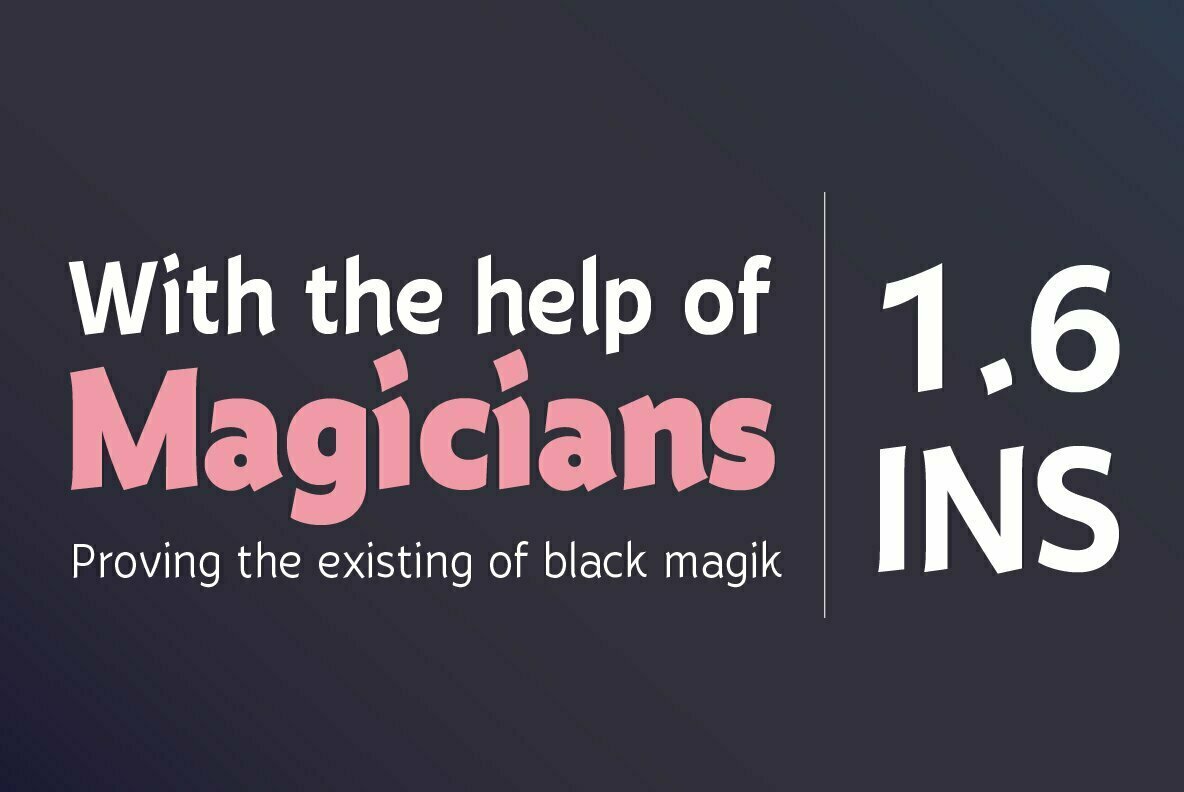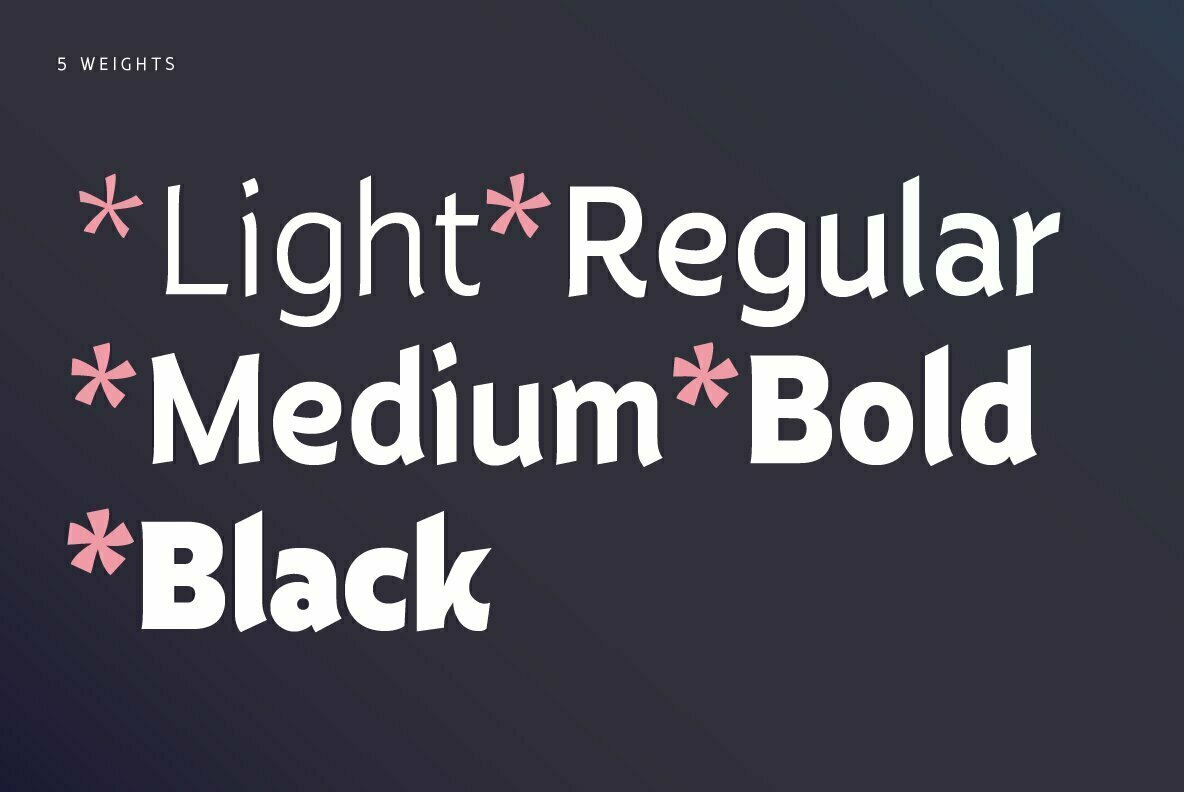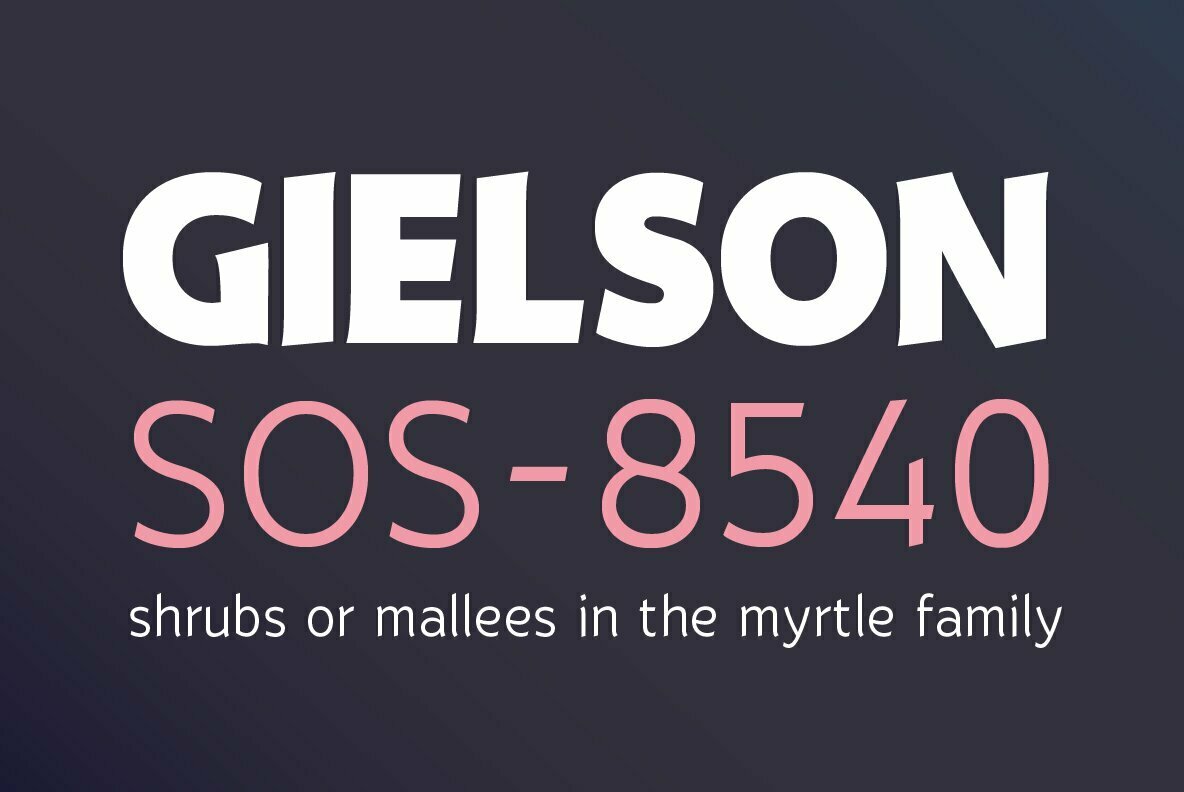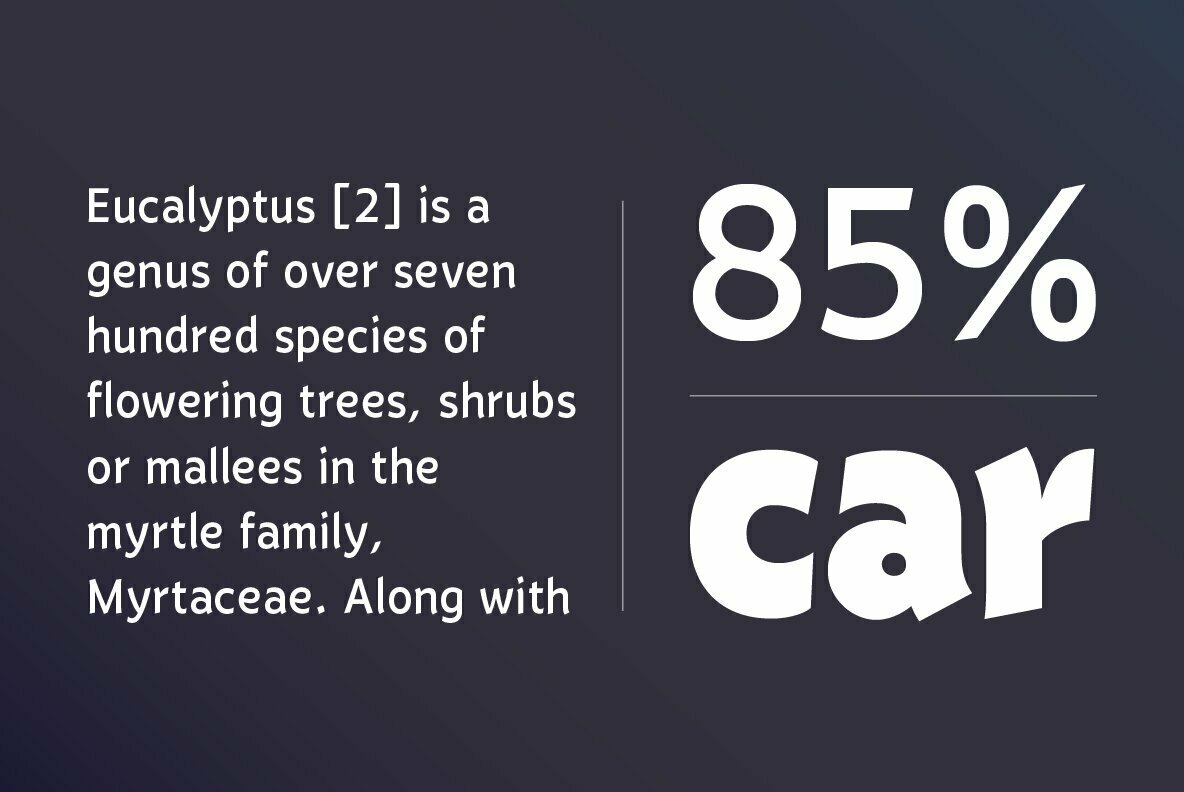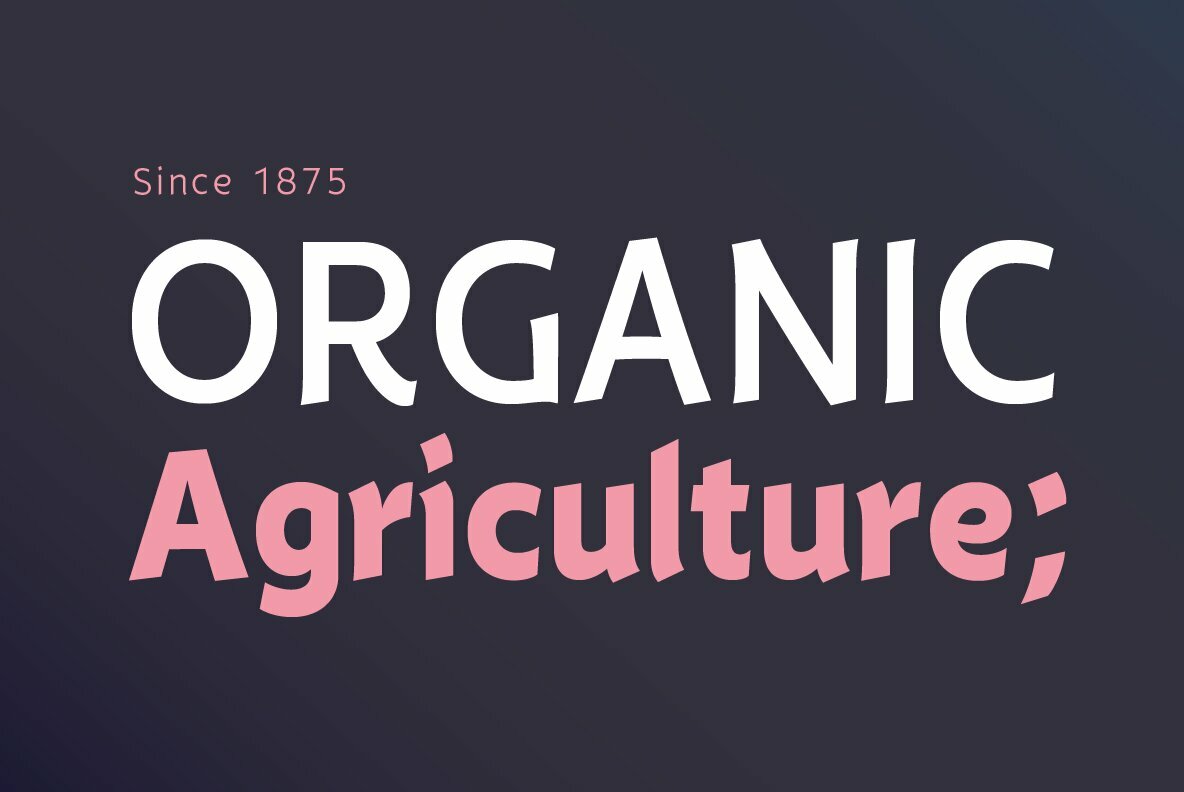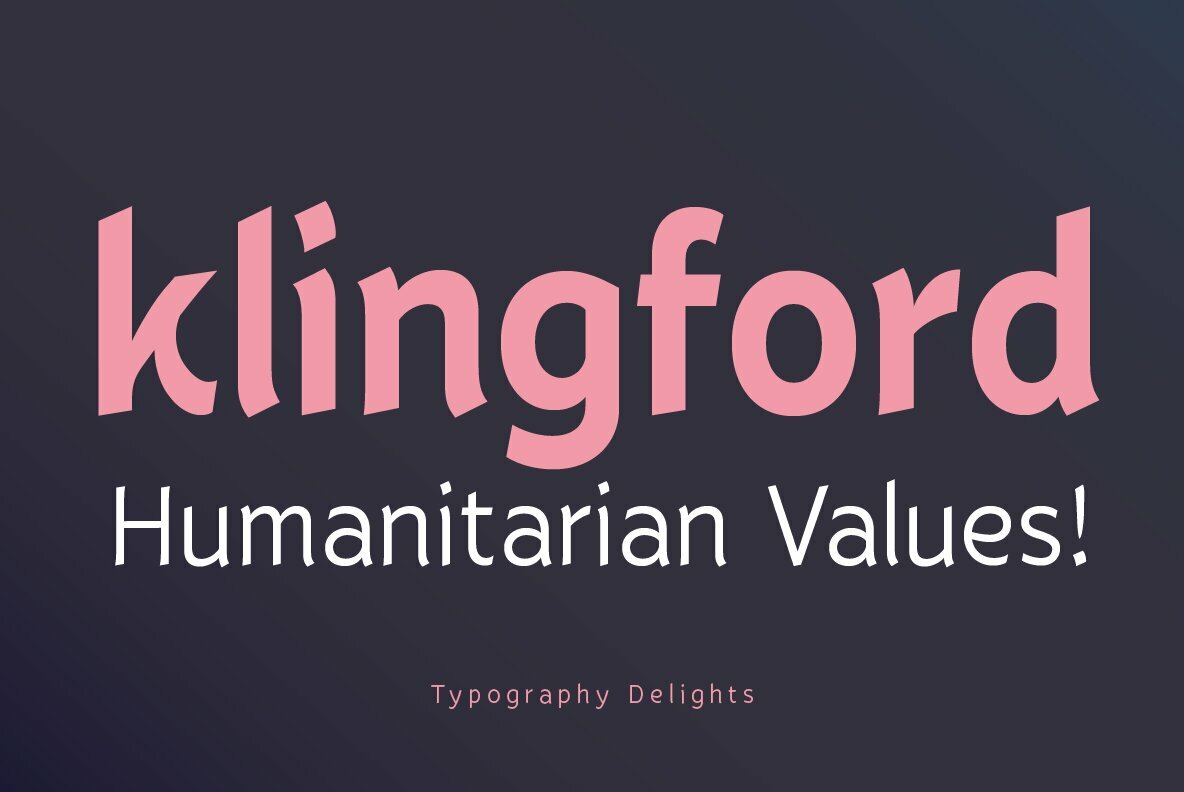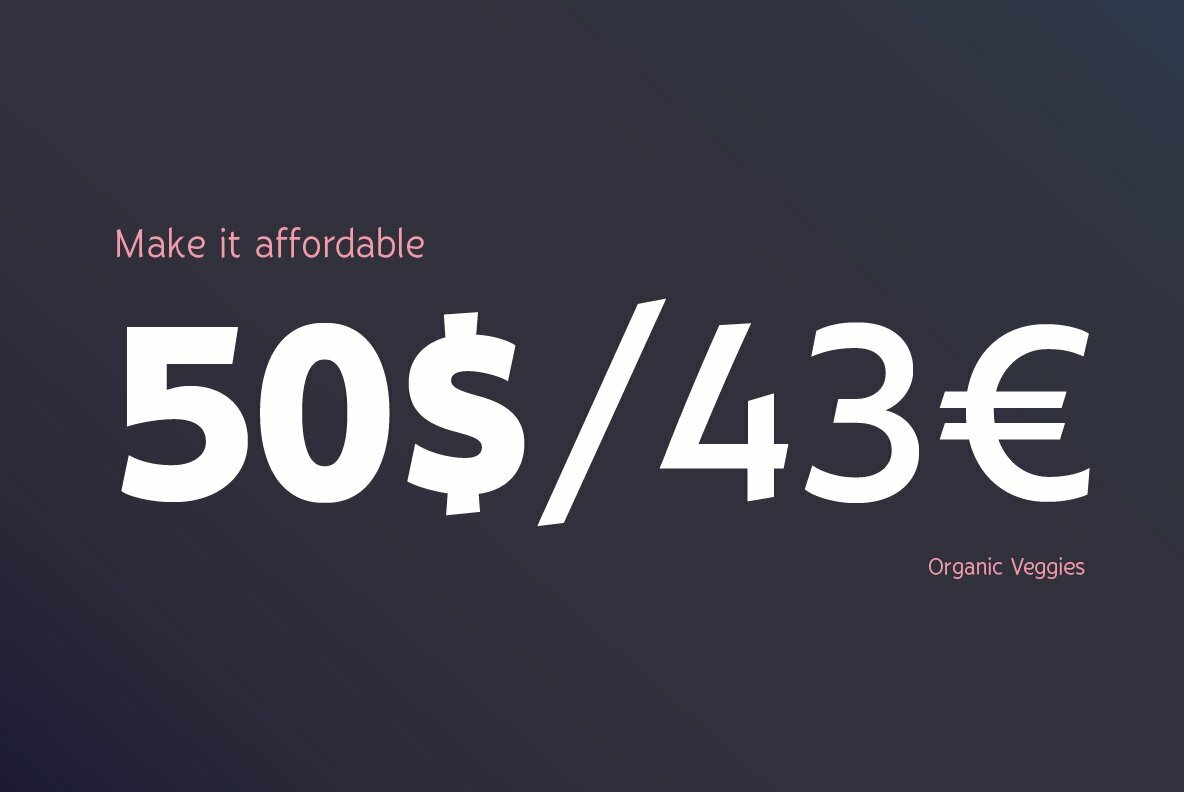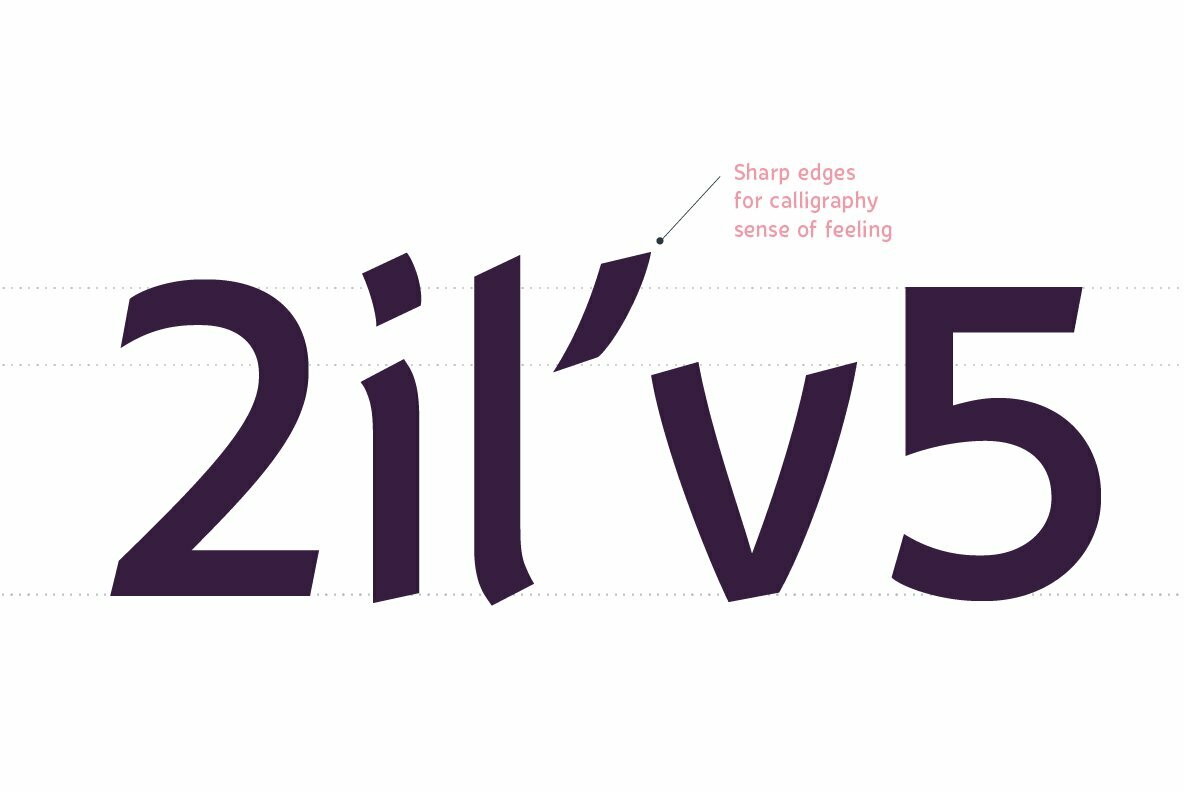
Eklekt Font
The Magical look of Eklekt is not made by chance, it is created with the combination of graphic-sharp shapes and a flow curves that looks a bit like it is written by hand.